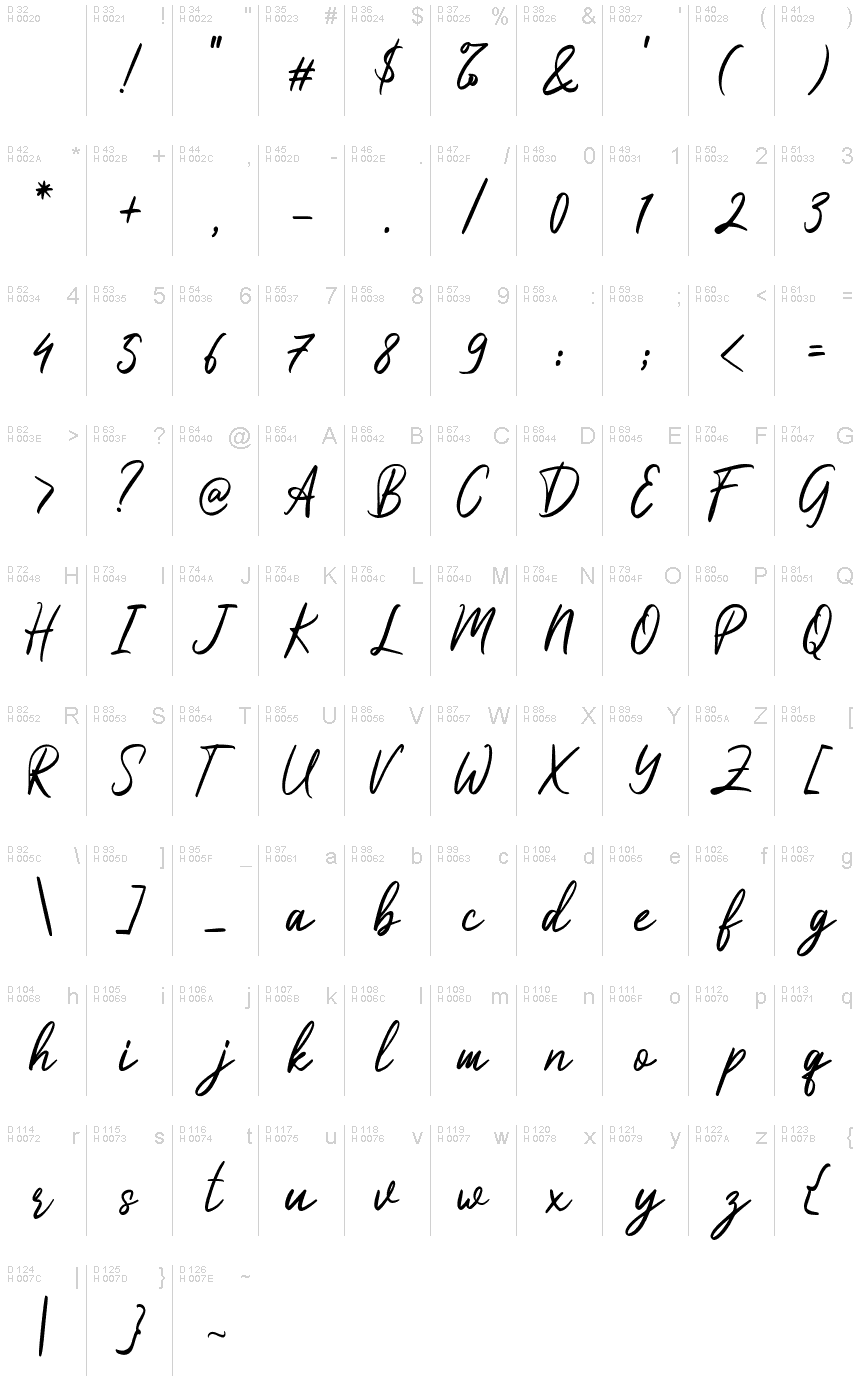
Dandiyella
Dandiyella, crafted by the talented Ikrar Bey Khubaib, stands out as a semi-light handwritten font that effortlessly brings a touch of personalization to any creative endeavor. Its fluidity and distinct character flourish in projects that demand a bespoke feel—from heartfelt invitations to branding with a human touch. Ideal for designers seeking to inject authenticity into their work, Dandiyella's charm captivates audiences across digital platforms and print media alike.
Embrace its versatility and let this font transform your creative vision into an intimate experience.